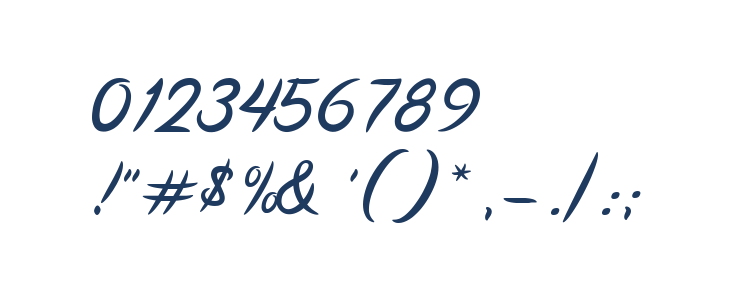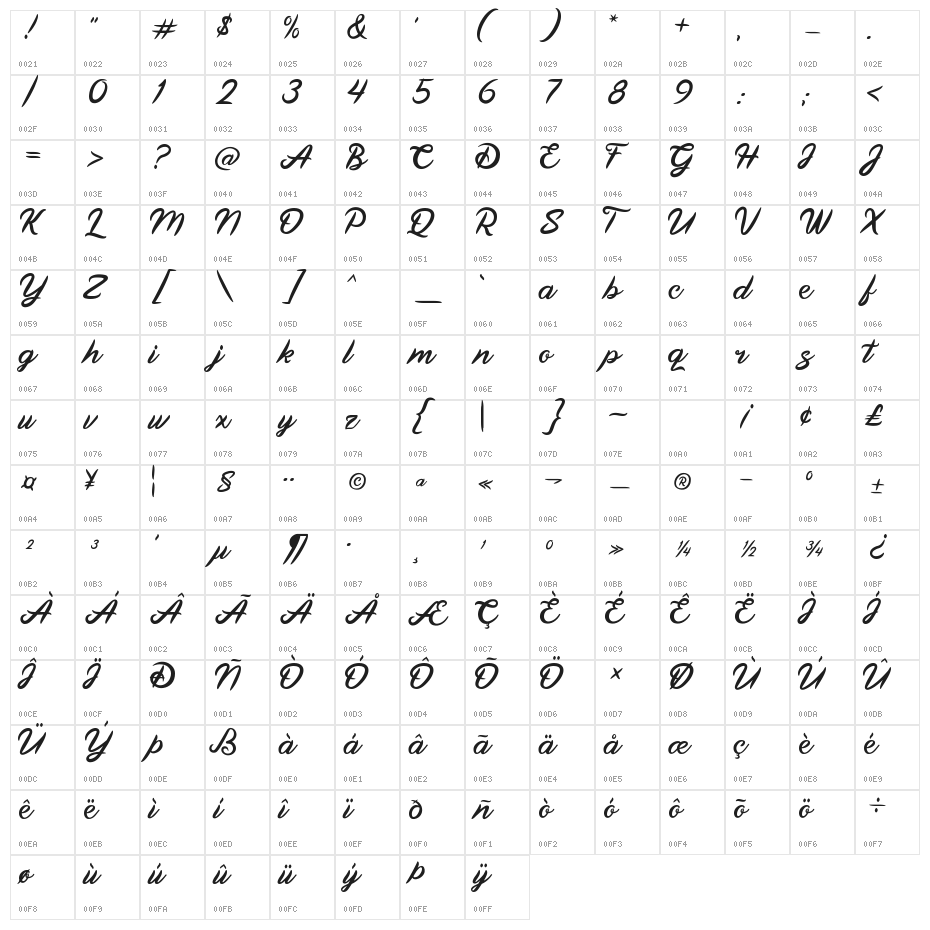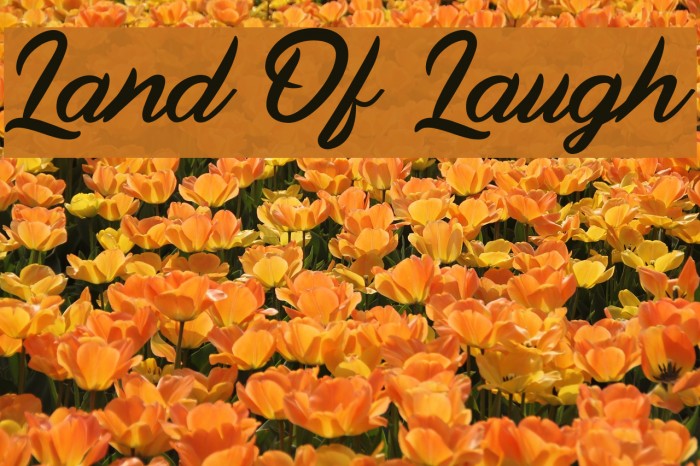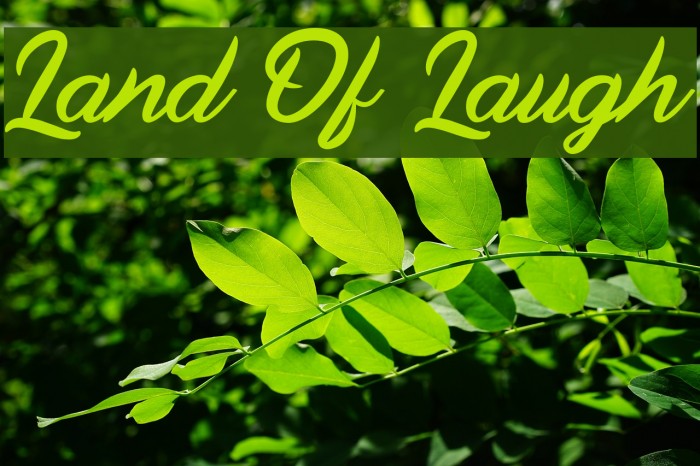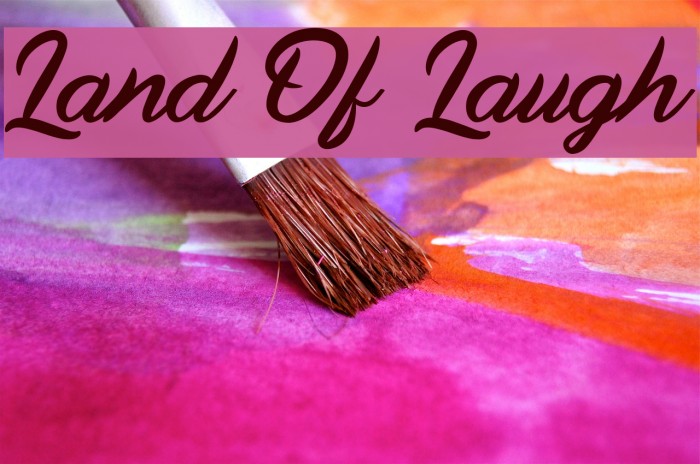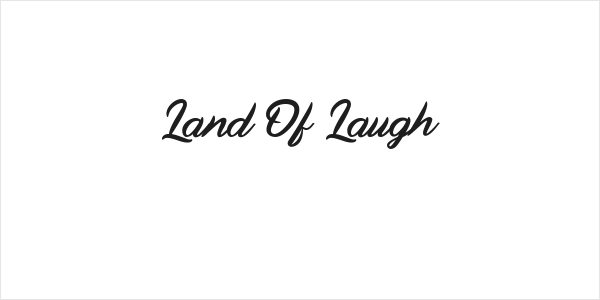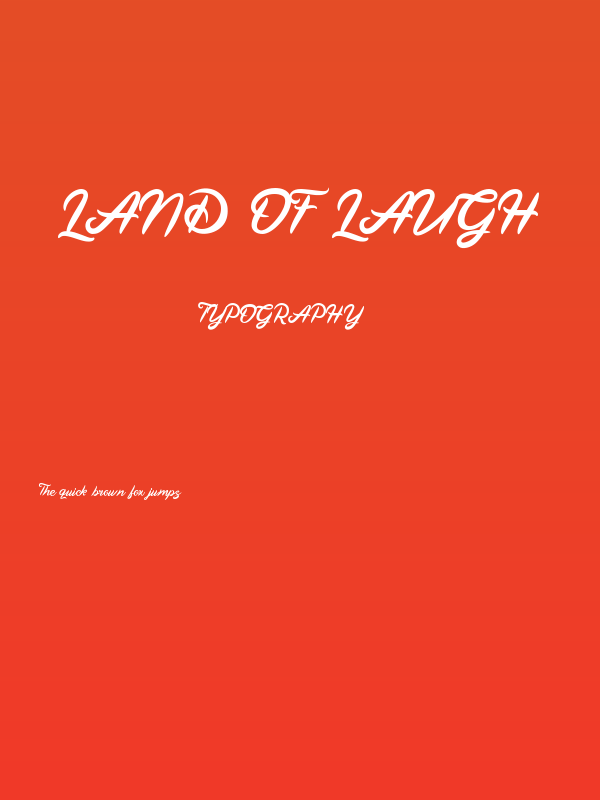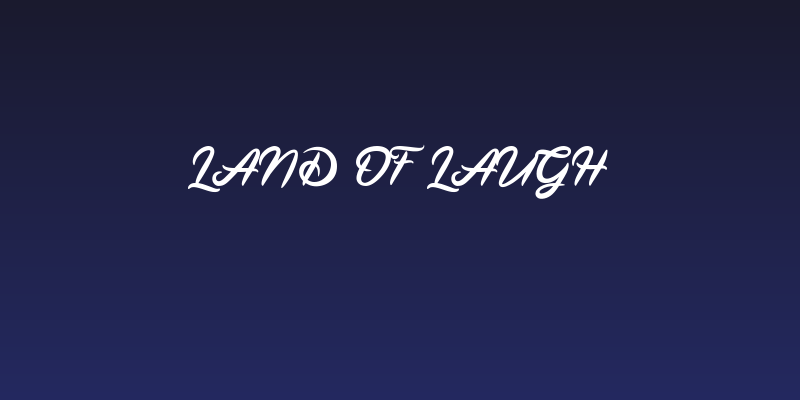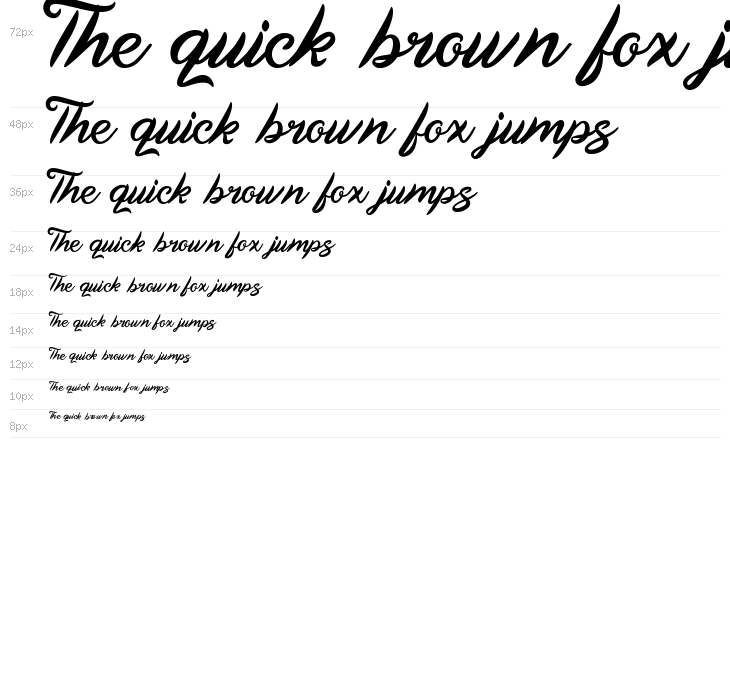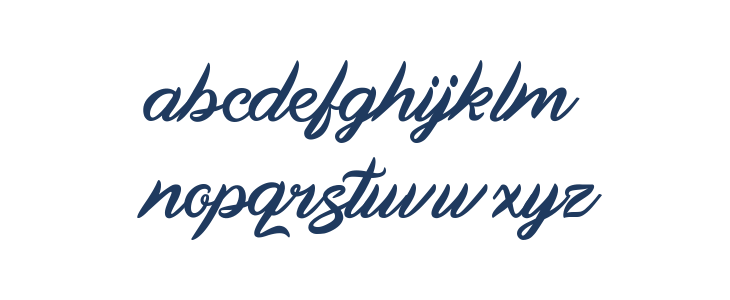
Land Of Laugh Font
Land Of Laugh Description
This font features a flowing, cursive style that exudes elegance and sophistication. The characters are interconnected, creating a seamless and fluid appearance. The uppercase letters are bold and prominent, while the lowercase letters maintain a consistent flow with gentle curves and loops. The numerals are equally stylish, matching the overall aesthetic of the alphabet. Special characters are designed with the same attention to detail, ensuring they blend seamlessly with the rest of the font. The strokes are moderately thick, providing a balanced contrast that enhances readability while maintaining the decorative nature of the script.
| Overall Style | Elegant, Decorative |
| Use Case | Logos, Invitations, Decorative Text |
| Proposed Projects | Ideal for wedding invitations, elegant branding, greeting cards, and upscale packaging. |